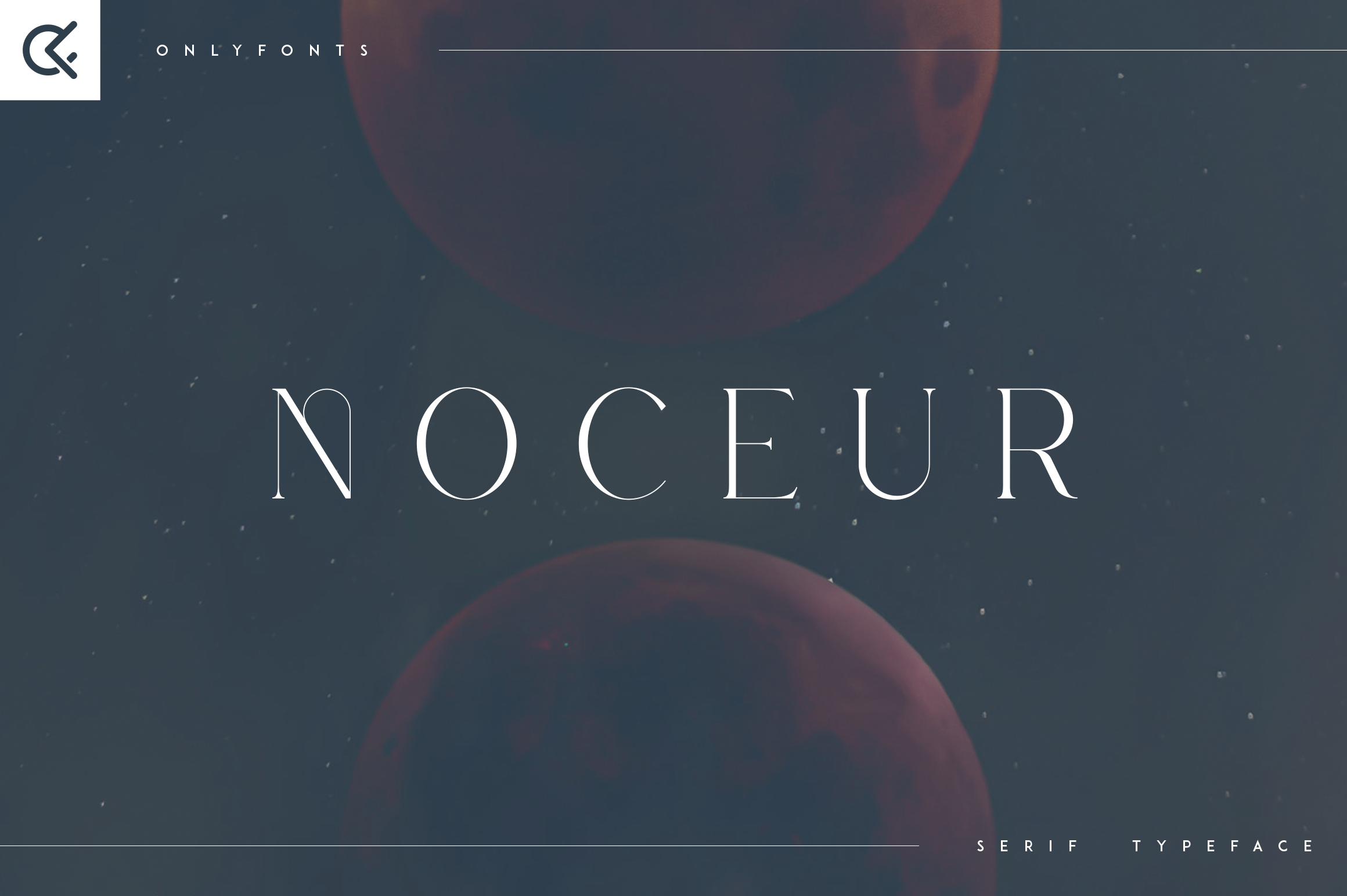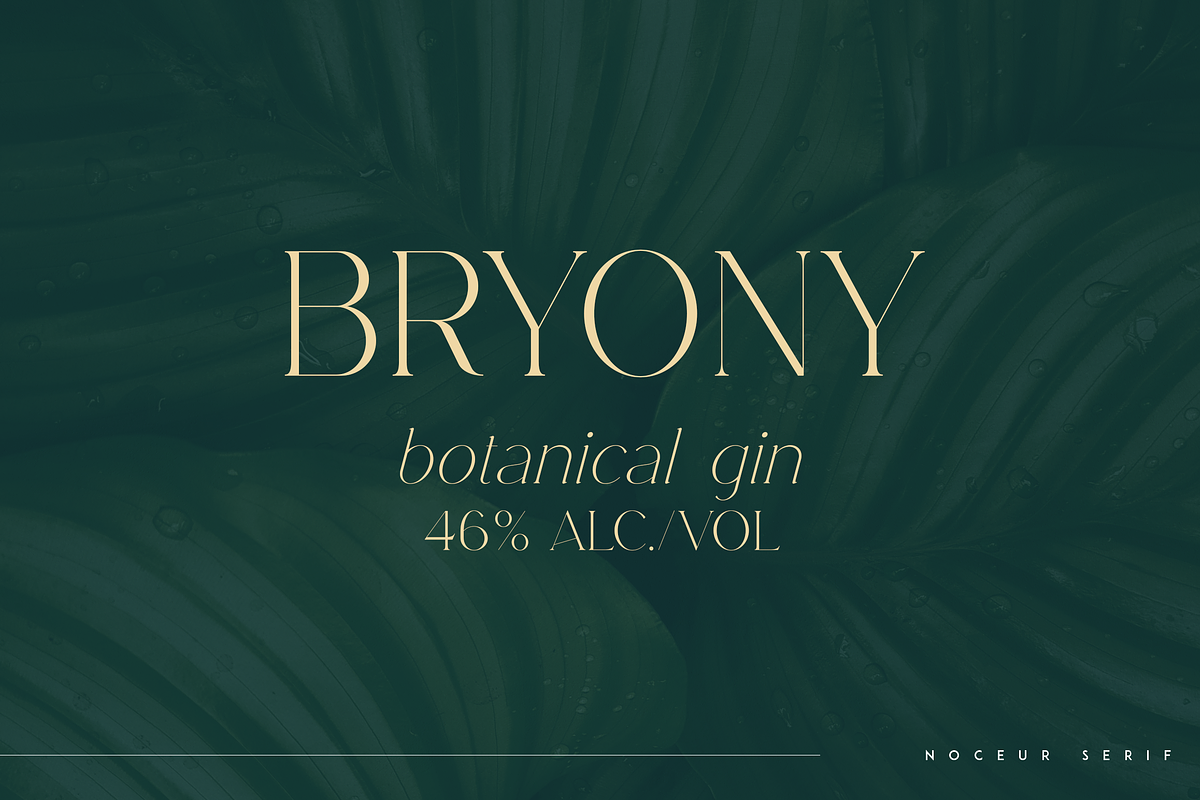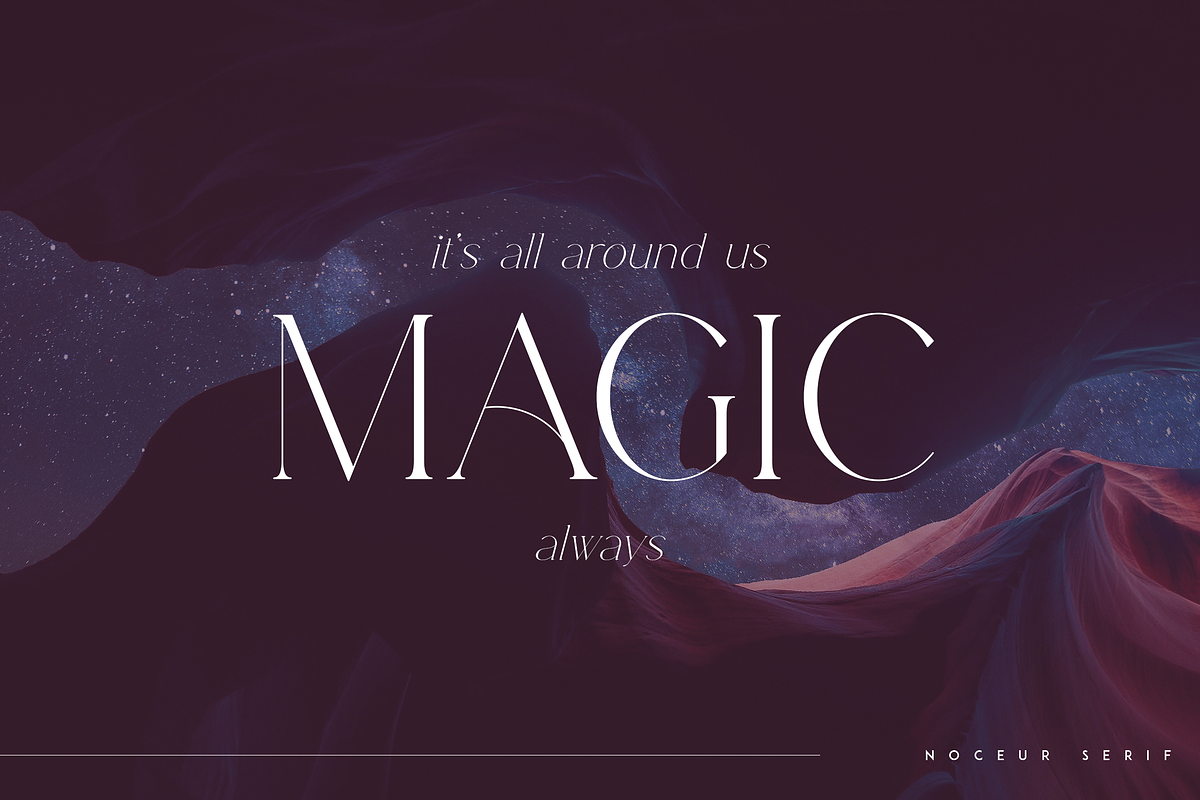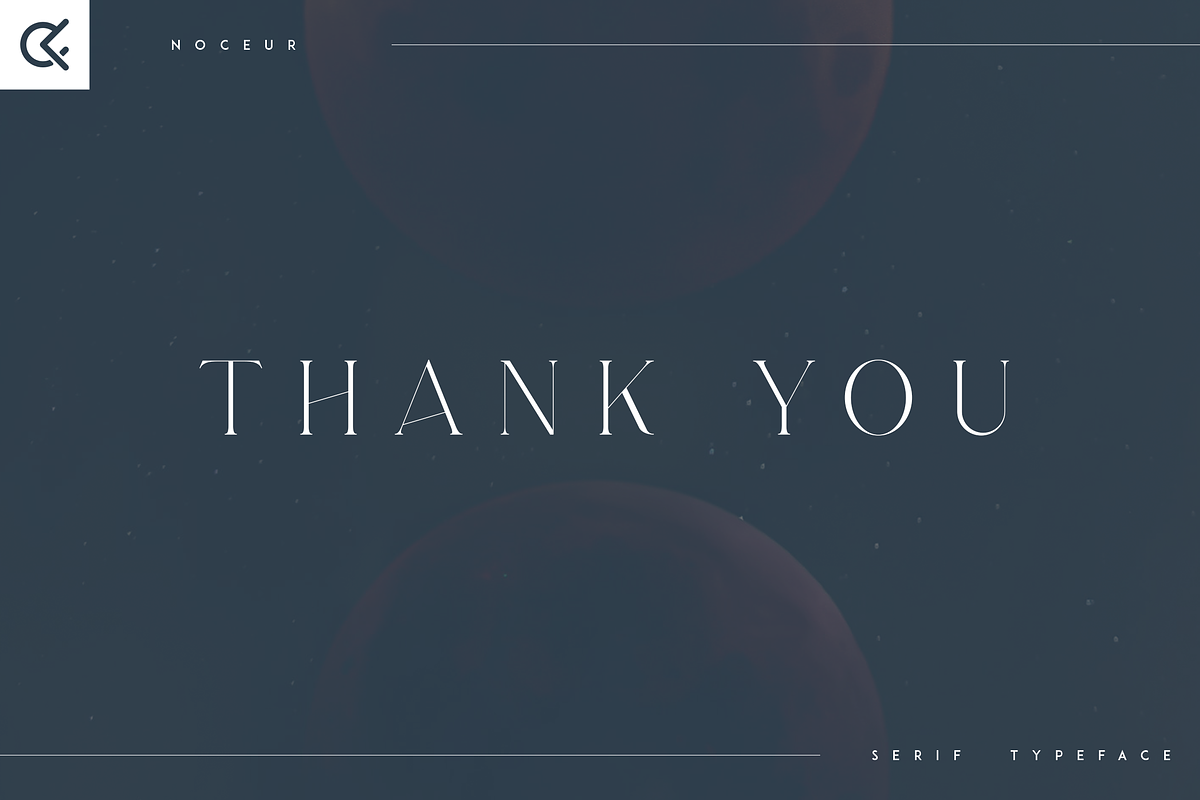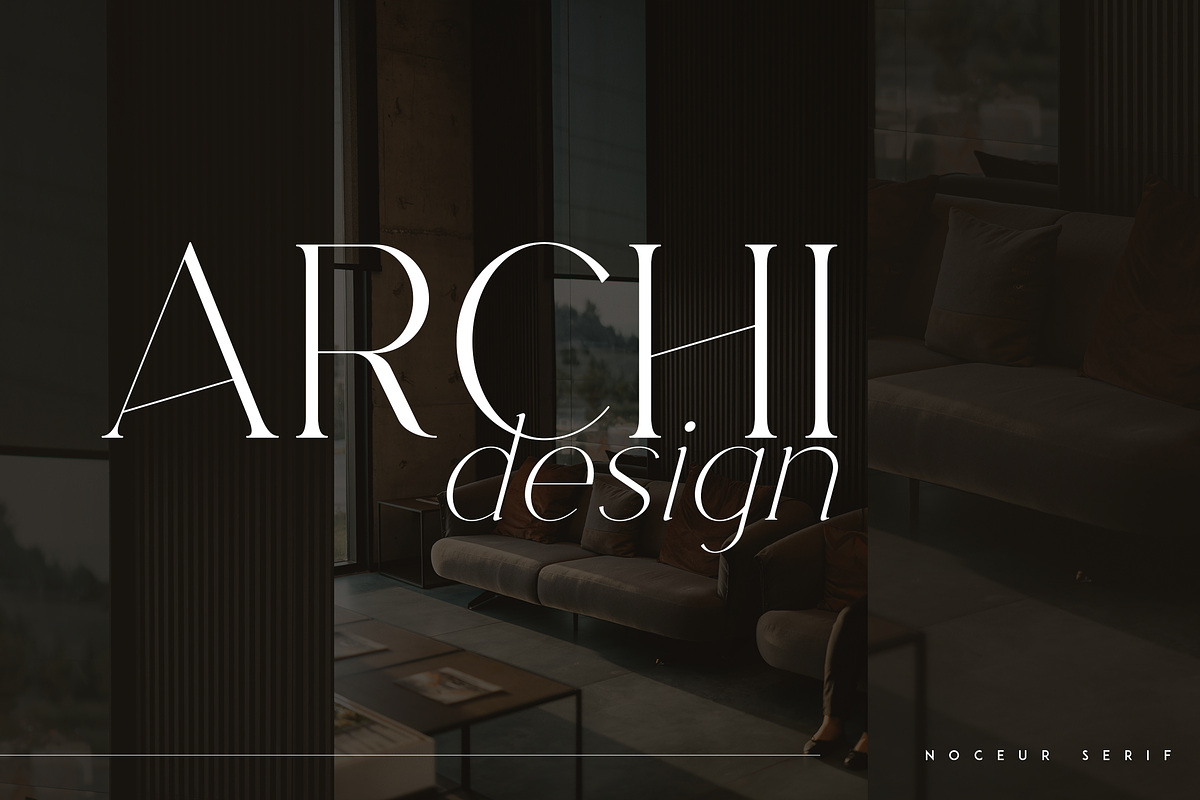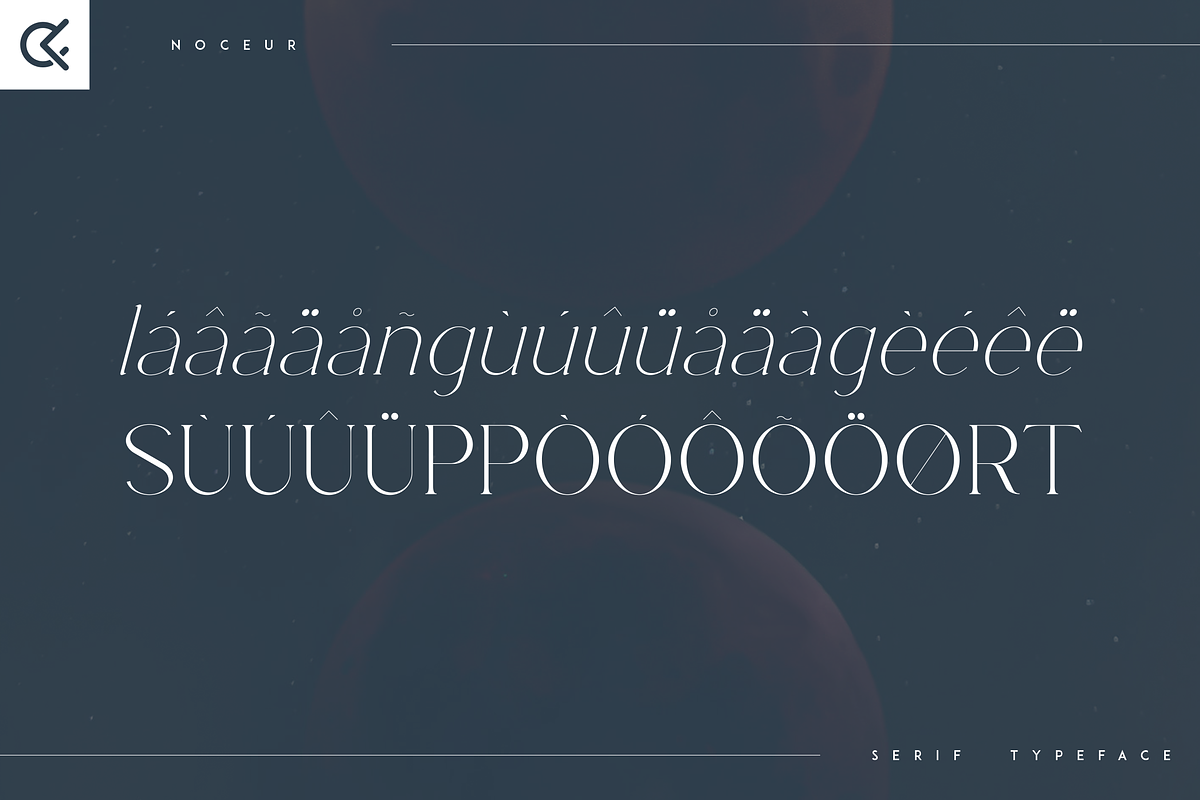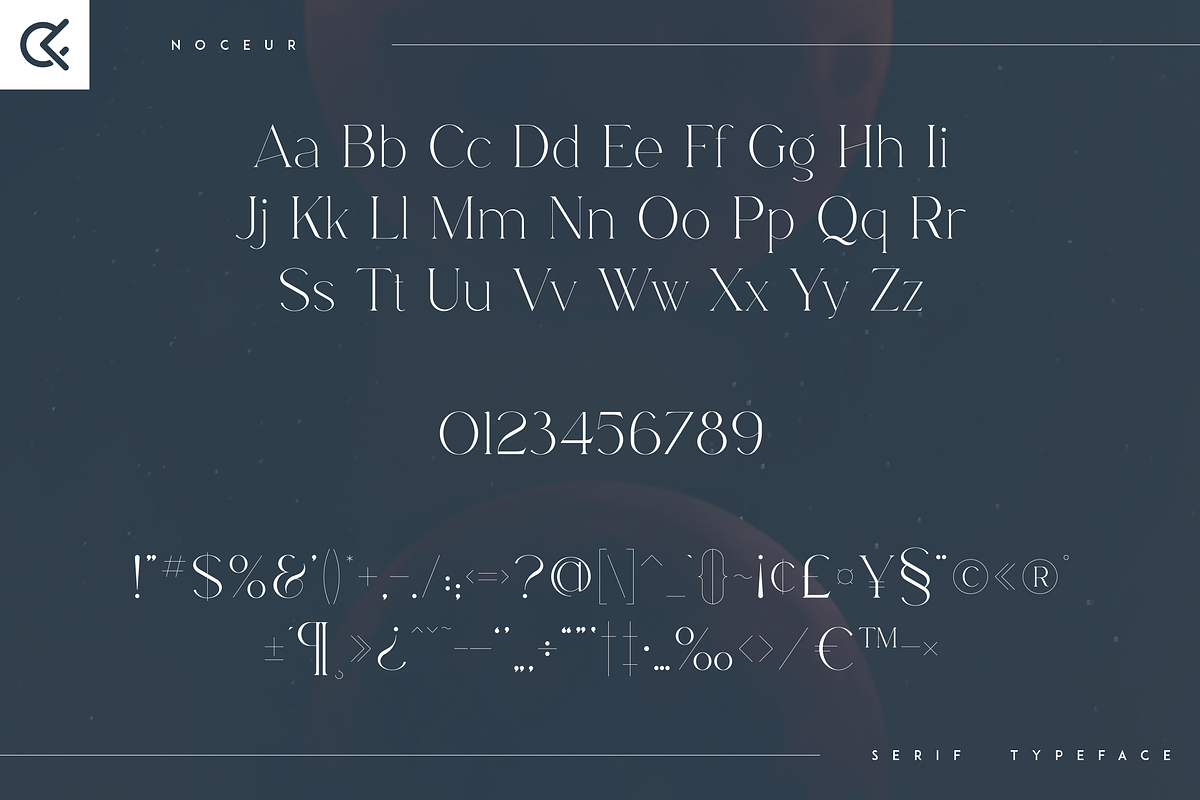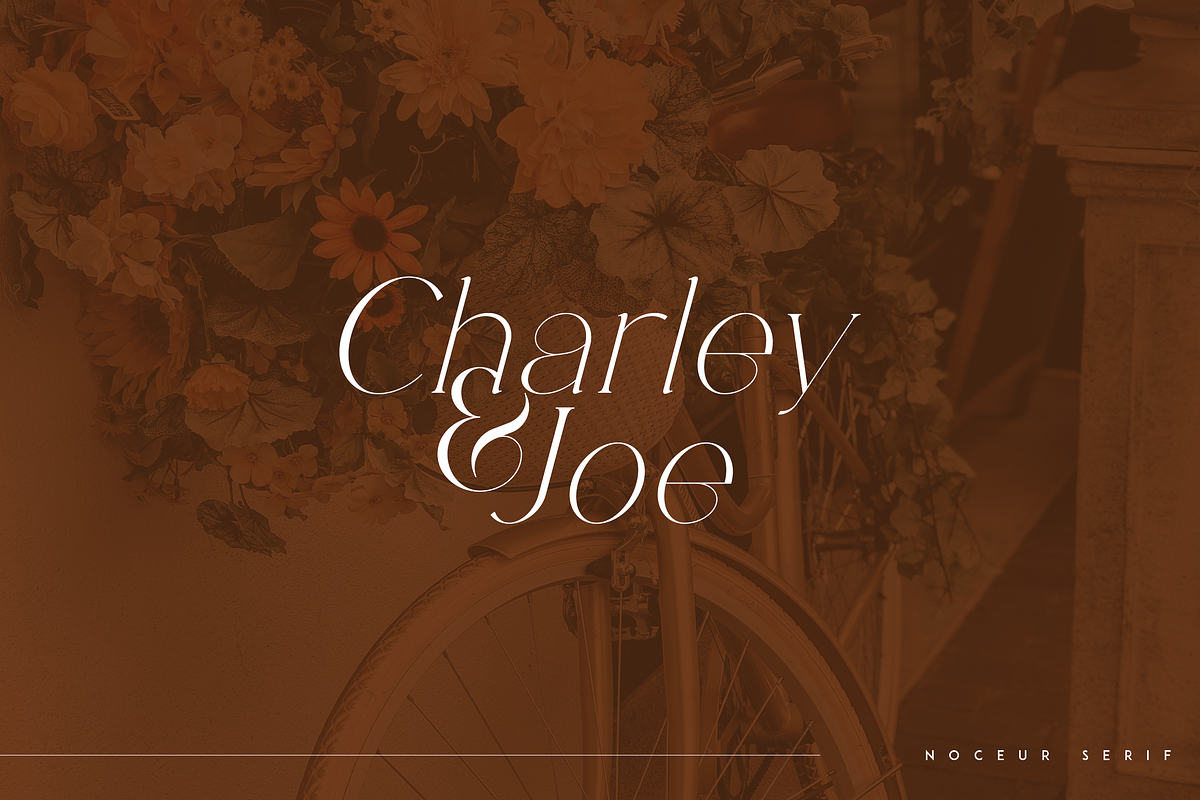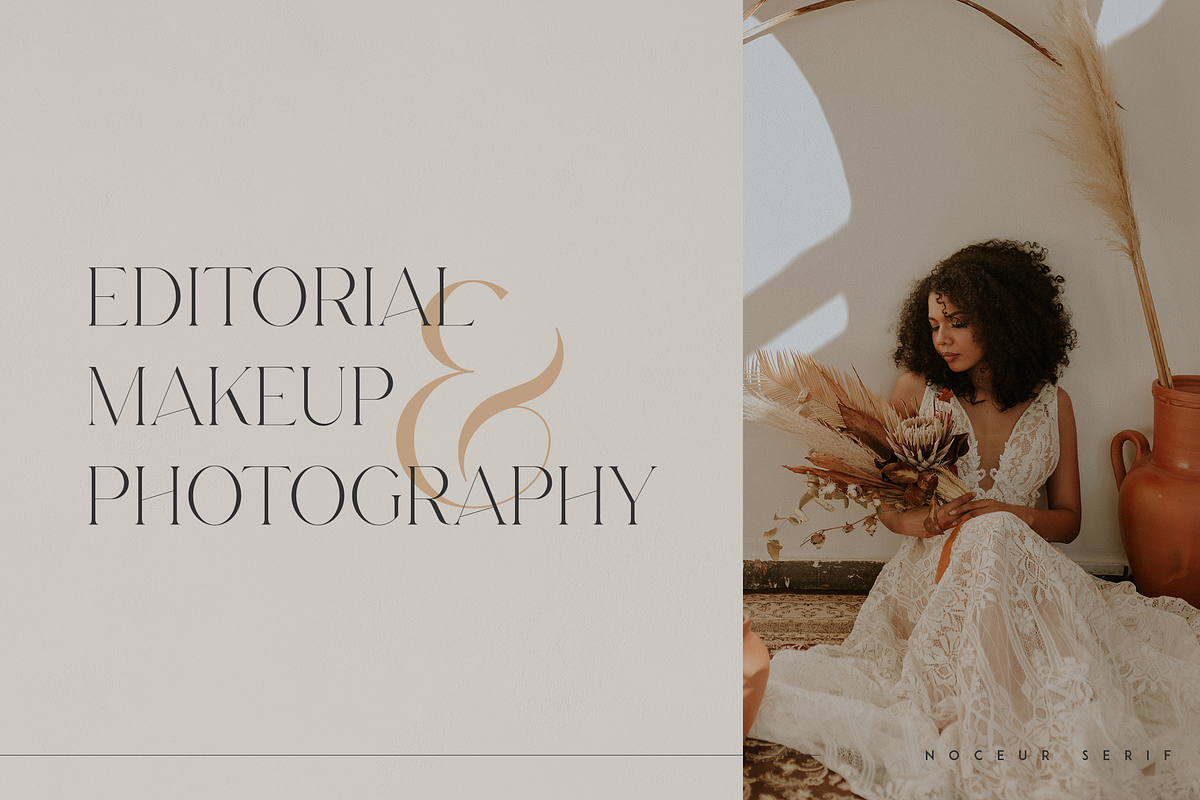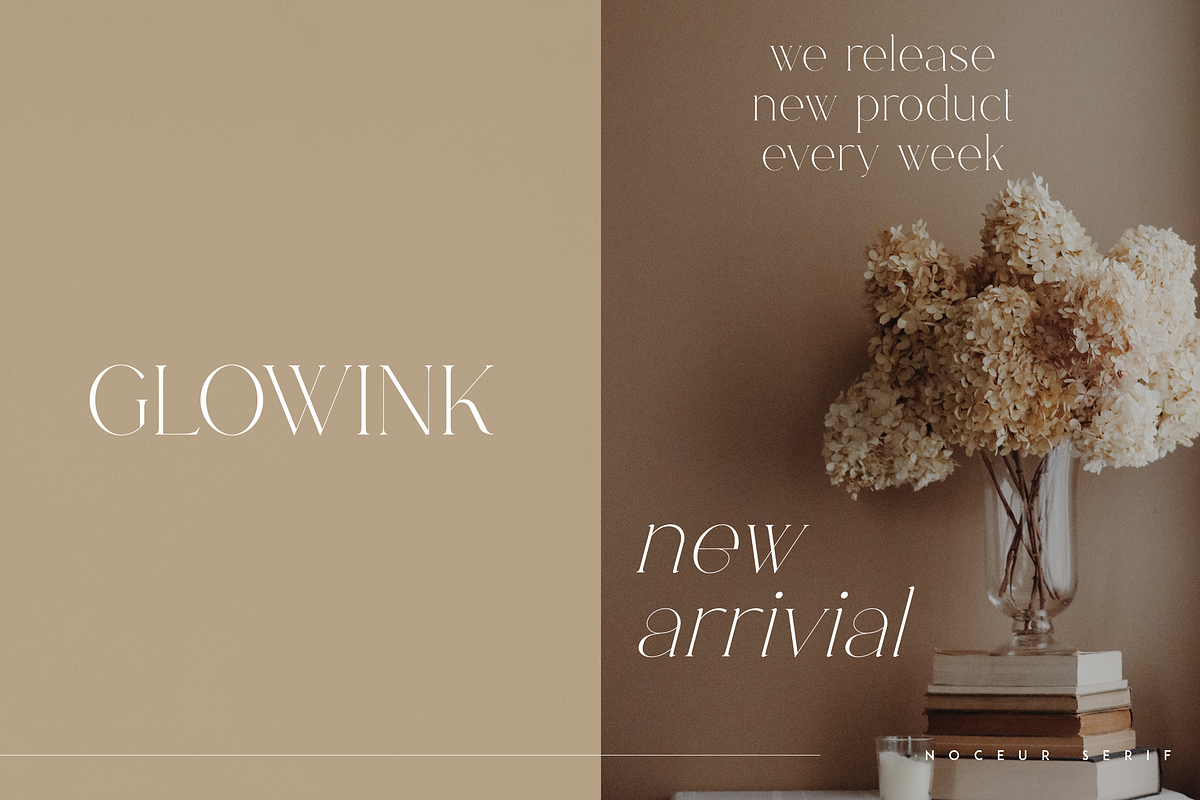
Noceur - elegant serif typeface
Introducing Noceur - Elegant serif font
Noceur is luxury and fragile font with multilingual support. It's a very versatile font that works great in large and small sizes.
This font is perfect for branding projects, home-ware designs, product packaging, magazine headers - or simply as a stylish text overlay to any background image.
- Uppercase, lowercase, numeral, punctuation & Symbol
- alternate glyphs
- regular and italic versions